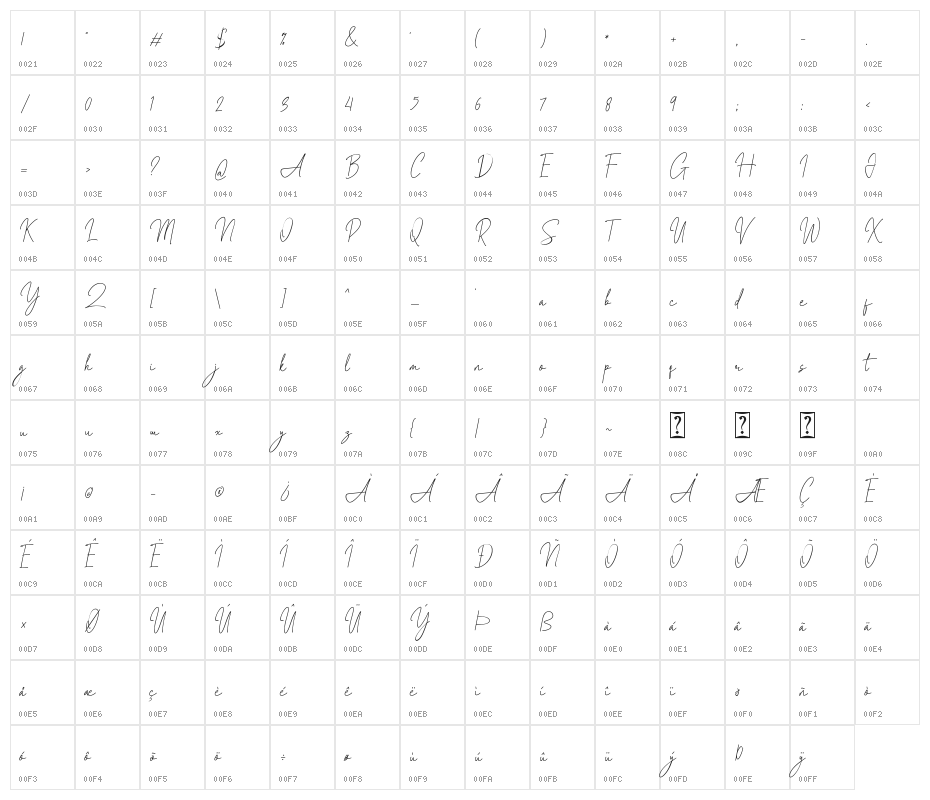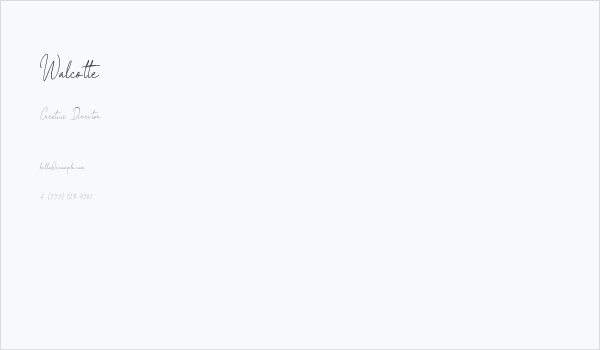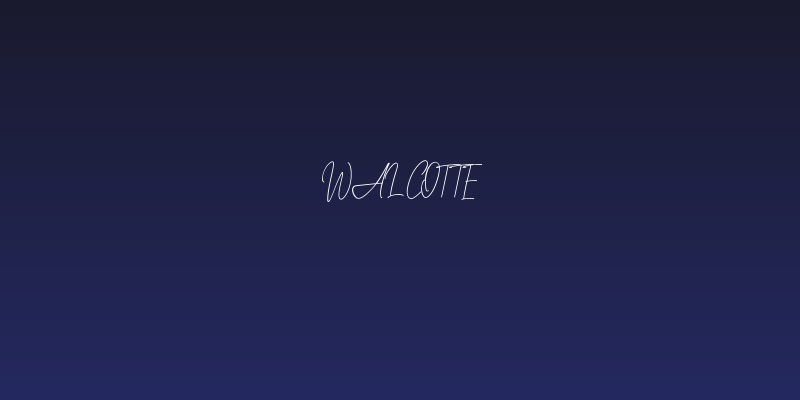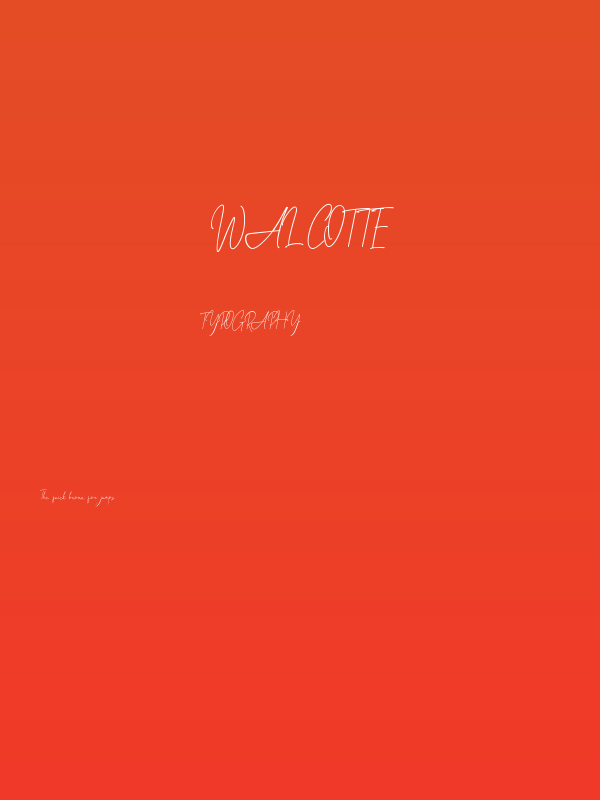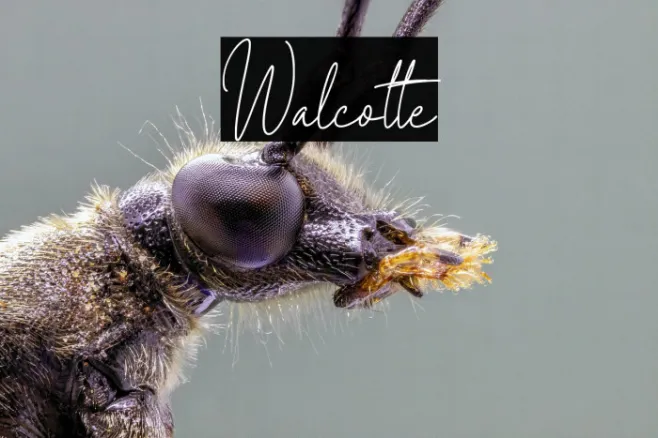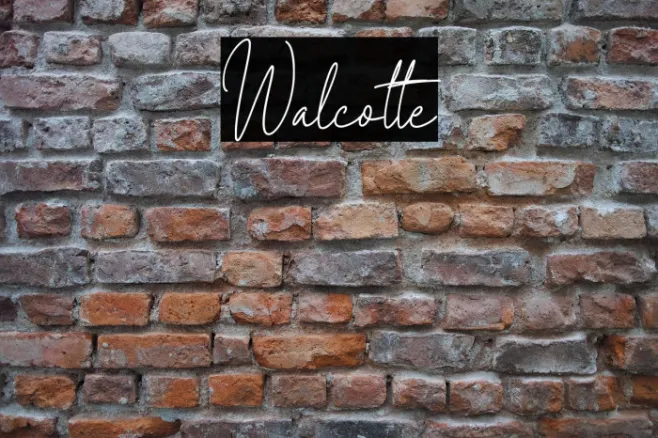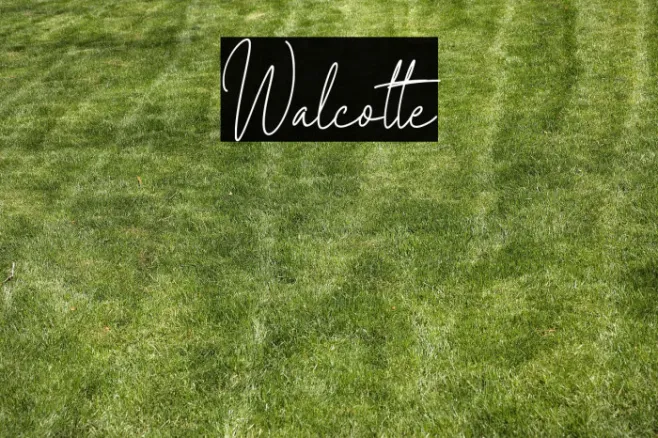
Walcotte Font
Walcotte Description
This elegant script font features a flowing, handwritten style with a sophisticated and artistic flair. The letters are characterized by their elongated, graceful curves and delicate strokes, creating a sense of movement and fluidity. The uppercase letters are particularly striking, with their tall, slender forms and intricate loops, while the lowercase letters maintain a consistent, harmonious rhythm. The numerals and special characters complement the overall aesthetic, adding versatility to the font. This font exudes a sense of refinement and creativity, making it ideal for projects that require a personal, artistic touch.
| Overall Style | Elegant, Artistic |
| Proposed Projects | Ideal for wedding invitations, greeting cards, branding, and artistic projects that require a personal touch. |